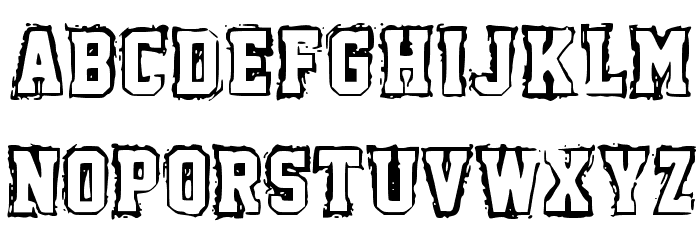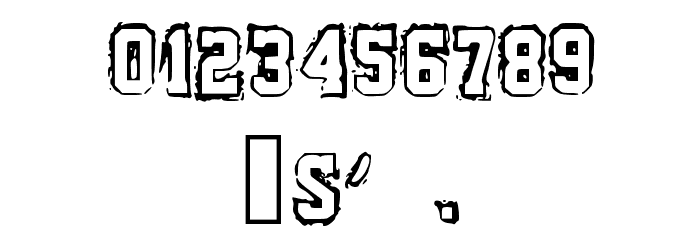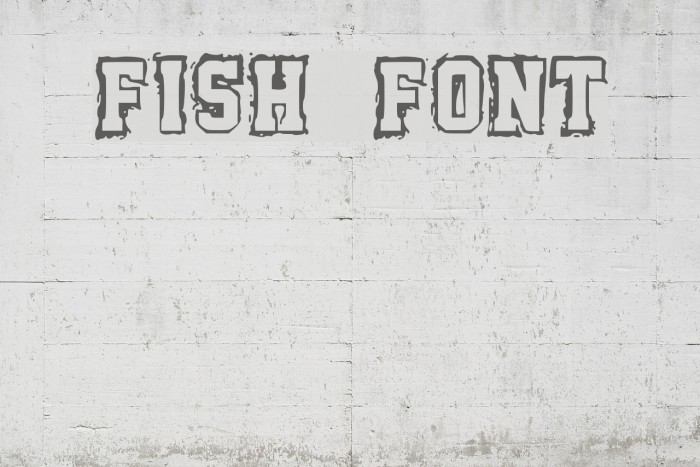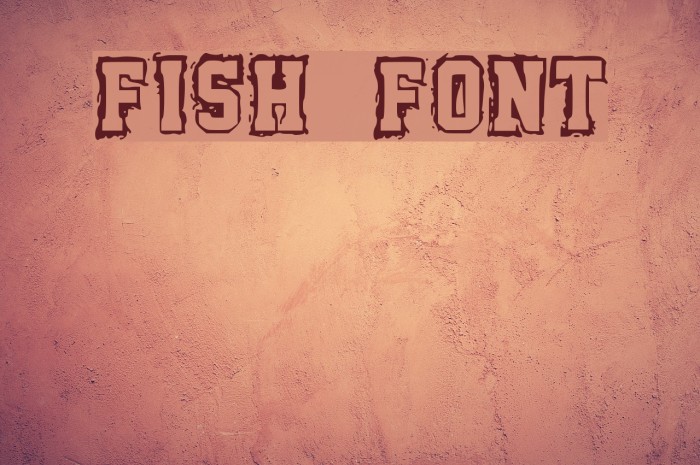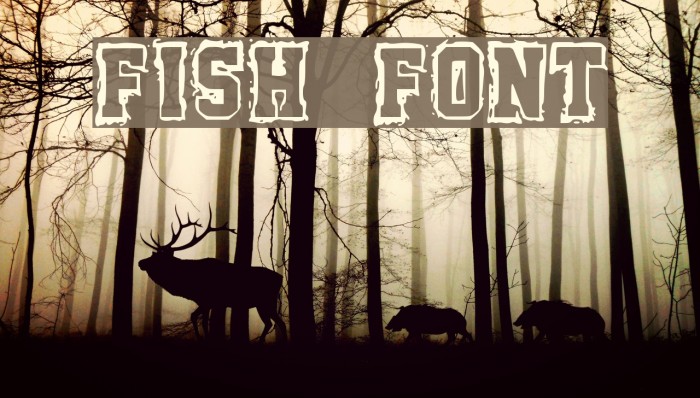
Fish Font
This font features a bold and rugged design with a distressed texture, giving it a vintage and worn appearance. The characters are uppercase and have a blocky, serif style with uneven edges, adding to the rustic and handcrafted feel. The numbers and special characters maintain this consistent aesthetic, making it suitable for designs that require a strong, impactful look. The font's unique texture and bold presence make it ideal for projects that aim to convey a sense of strength and authenticity.
A bold, distressed serif font with a vintage, rugged appearance.
- Proposed Projects: Perfect for posters, branding, logos, and any design needing a vintage or rustic touch.
- Overall Style: Vintage